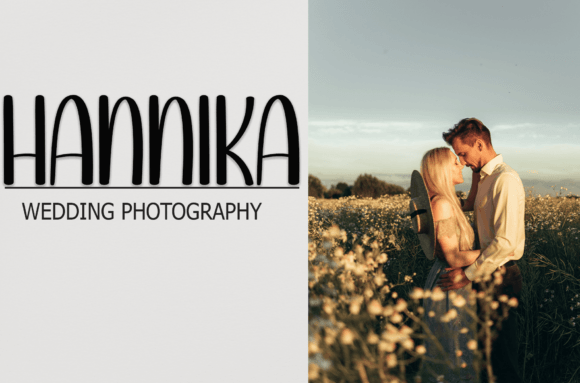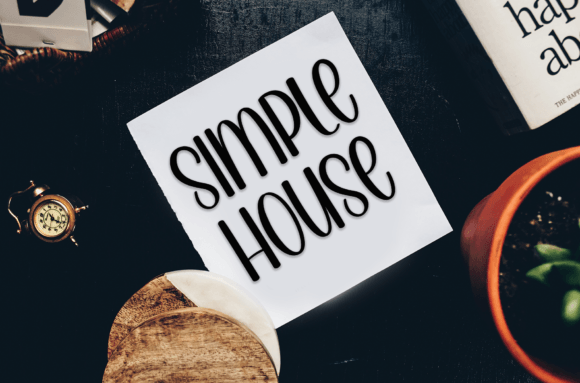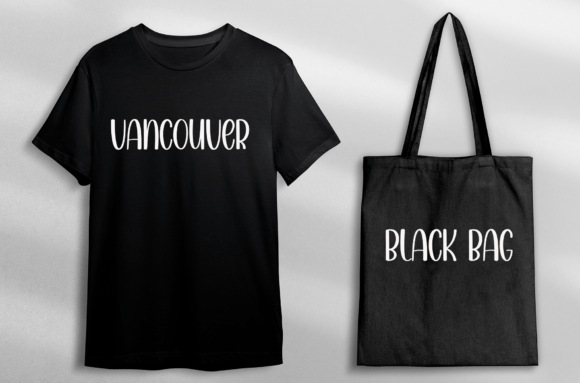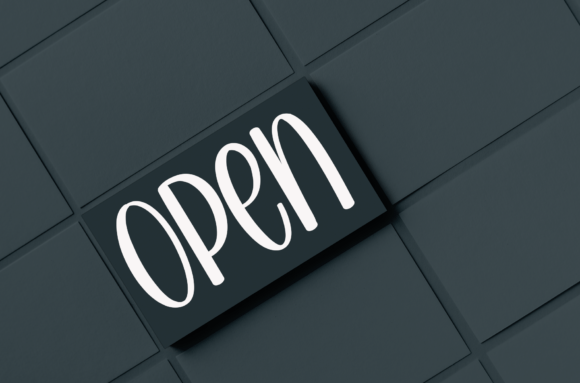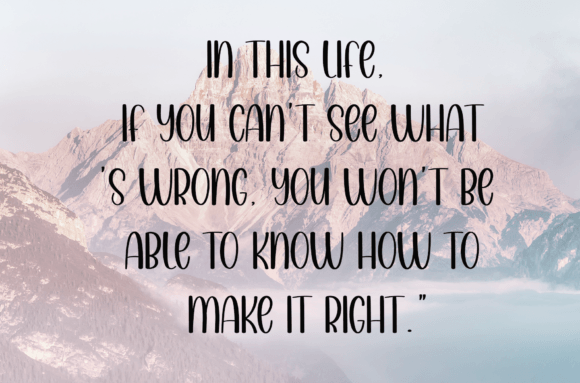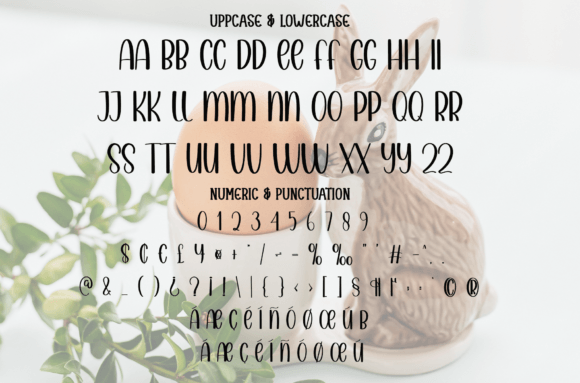
Easterday Font: The Perfect Addition to Your Design Arsenal
Are you a designer or crafter looking for a font that can add a touch of sweetness and friendliness to your designs? Look no further than Easterday Font! This beautiful handwritten font is perfect for creating wedding invitations, cards, and other designs that require a fun and playful touch.
What is Easterday Font?
Easterday Font is a sweet and friendly handwritten font that is sure to capture the hearts of your audience. Its fresh and neat design makes it ideal for a wide range of design projects, from wedding invitations and cards to social media graphics and more. The font’s playful and whimsical feel is perfect for adding a personal touch to your designs and making them stand out from the crowd.
Key Features of Easterday Font
- Sweet and Friendly Design: Easterday Font has a sweet and friendly design that is sure to appeal to a wide range of audiences.
- Handwritten Style: The font’s handwritten style gives it a personal and unique feel that is perfect for adding a touch of warmth to your designs.
- Fresh and Neat: Easterday Font is fresh and neat, making it easy to read and perfect for use in a wide range of design projects.
- Versatile: The font’s versatility makes it perfect for use in a wide range of design projects, from wedding invitations and cards to social media graphics and more.
Uses for Easterday Font
Easterday Font is perfect for a wide range of design projects, including:
- Wedding Invitations: The font’s sweet and friendly design makes it perfect for use in wedding invitations and other wedding-related design projects.
- Cards: Easterday Font is ideal for use in greeting cards, birthday cards, and other types of cards that require a personal touch.
- Social Media Graphics: The font’s playful and whimsical feel makes it perfect for use in social media graphics, such as Facebook posts and Instagram stories.
- Branding: Easterday Font can be used to create a unique and memorable brand identity for businesses and organizations.
Why Choose Easterday Font?
There are many reasons why designers and crafters should choose Easterday Font for their design projects. Here are just a few:
- Unique Design: Easterday Font has a unique and distinctive design that is sure to set your designs apart from the crowd.
- Easy to Read: The font’s fresh and neat design makes it easy to read, even at small sizes.
- Versatile: Easterday Font is versatile and can be used in a wide range of design projects.
- High-Quality: The font is of high-quality and is sure to provide excellent results in your design projects.
Tips for Using Easterday Font
Here are a few tips for using Easterday Font in your design projects:
- Use it with Other Fonts: Easterday Font can be paired with other fonts to create a unique and interesting design.
- Experiment with Different Sizes: The font’s fresh and neat design makes it easy to read at a wide range of sizes.
- Add a Personal Touch: Easterday Font is perfect for adding a personal touch to your designs and making them more relatable to your audience.
Easterday Font is a sweet and friendly handwritten font that is perfect for designers and crafters looking to add a touch of warmth and personality to their designs. Its fresh and neat design makes it easy to read and perfect for use in a wide range of design projects. Whether you’re creating wedding invitations, cards, or social media graphics, Easterday Font is sure to be a great addition to your design arsenal.